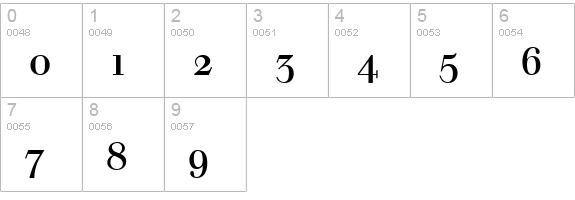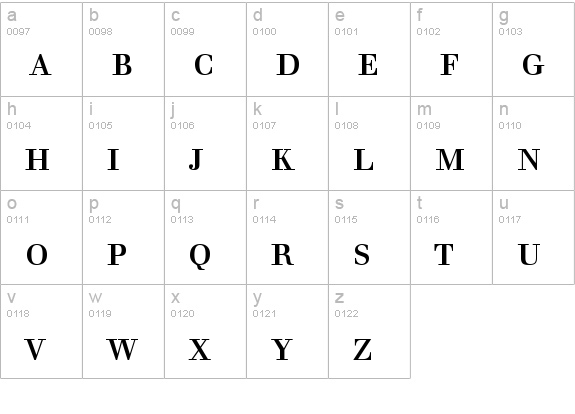
WalbaumDisplaySmc-Regular is the standard, neutral variant in the WalbaumDisplaySmc typeface family \xE2\x80\x94 well suited to general body text, paragraphs, and standard typographic work.
WalbaumDisplaySmc-Regular is a classic and elegant serif font that exudes sophistication and professionalism. Its clean lines and timeless design make it a versatile choice for a wide range of design projects, from editorial layouts to branding materials. The font's balanced proportions and graceful curves give it a refined and polished appearance, making it suitable for both print and digital applications. What sets WalbaumDisplaySmc-Regular apart is that it is available for free download at FontsMarket.com. This means that you can incorporate this high-quality typeface into your projects without any cost, making it a valuable asset for designers and creatives looking to elevate their work without breaking the bank. With its accessibility and premium quality, WalbaumDisplaySmc-Regular is a must-have font for anyone seeking a sophisticated and professional look for their designs.